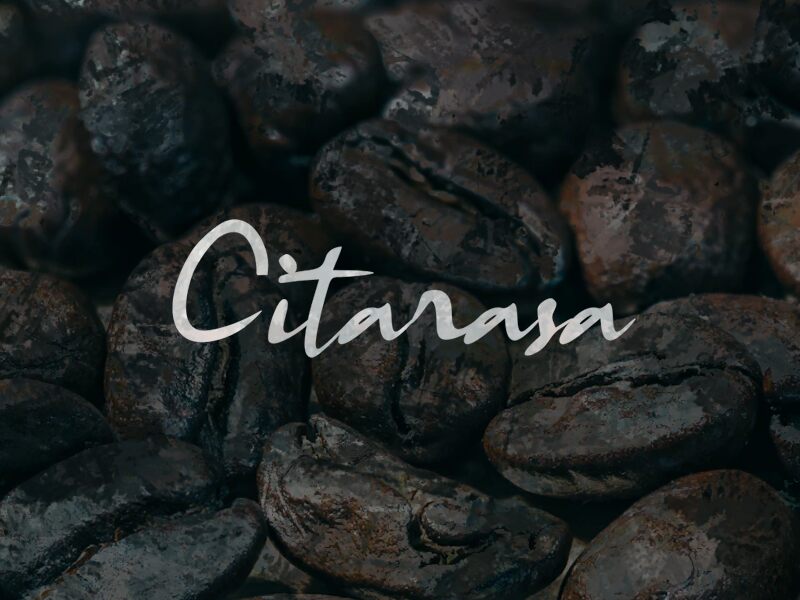
Citarasa
Citarasa is a light handwritten script font designed by Wahyu Eka Prasetya. This elegant font is perfect for projects that require a unique touch.